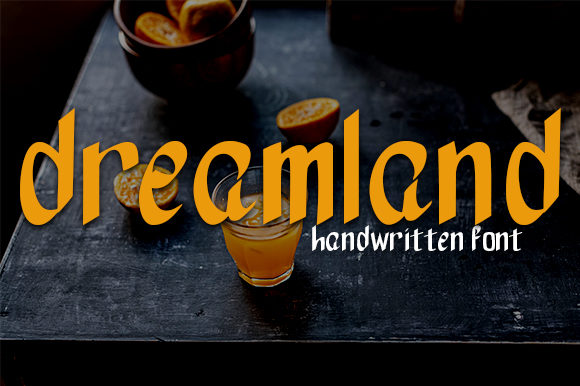
Embark on a typographic journey to the ethereal realm of Dreamland Font, where letters dance with grace and charm. This enchanting script font, crafted with meticulous care by the visionary artist wny79, captivates with its relaxed and carefree spirit. Experience the magic as your words transform into whimsical masterpieces, adorned with the allure of Dreamland.
Unleash your creativity and let your imagination soar as you explore the endless possibilities that await. Whether you're crafting heartfelt quotes that resonate with your audience, designing logos that exude uniqueness, creating t-shirts that make a statement, or adding a touch of charm to your stationery and greeting cards, Dreamland Font is your perfect companion.
Dive into a world where classic elegance meets modern appeal. The graceful curves and delicate strokes of Dreamland Font evoke a sense of nostalgia, while its contemporary design ensures that your creations remain fresh and relevant. Let the boundless energy of Dreamland Font ignite your passion and bring your artistic vision to life.
Transform ordinary text into captivating works of art. Dreamland Font's effortless flow and captivating style lend themselves beautifully to a multitude of applications. Let your words take center stage in social media posts, capture the essence of your brand in marketing materials, or create awe-inspiring invitations that leave a lasting impression.
With Dreamland Font, the possibilities are limitless. Embrace the power of typography and let your creativity flourish. Experience the joy of crafting designs that captivate, inspire, and leave an unforgettable mark on the hearts of your audience.